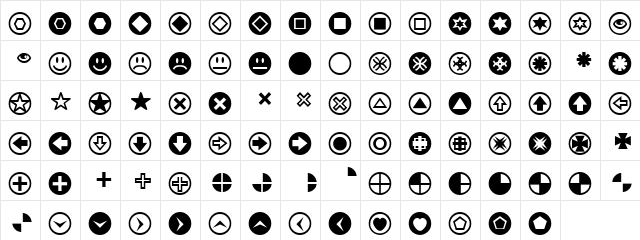
PizzaDude Bullets Regular
Design Context for PizzaDude Bullets Typeface
PizzaDude Bullets is a composed and adaptable typeface that performs quietly and consistently across a wide range of design contexts.